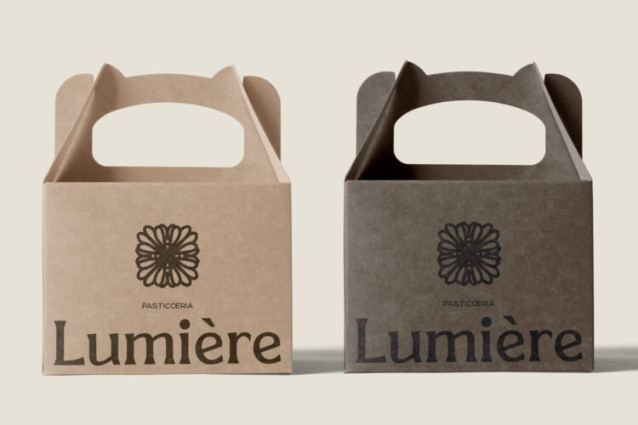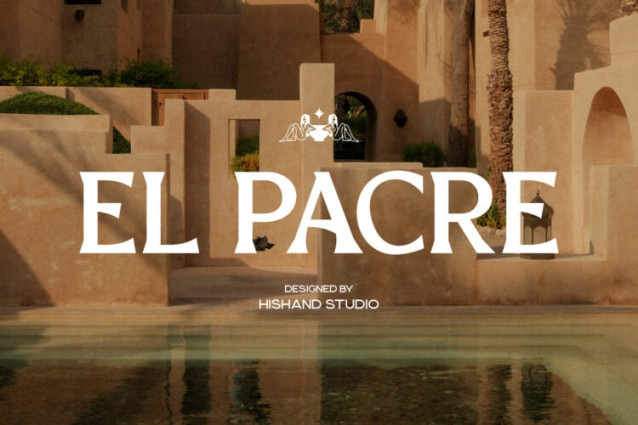
El Pacre Font is a bold and aesthetic display serif font designed to embody luxury, confidence, and timeless beauty. Every curve and detail has been carefully crafted to create a typeface that feels powerful yet refined. With its elegant letterforms and sophisticated proportions, El Pacre instantly elevates any design it touches. It’s made for creators who want their work to look distinctive, polished, and full of character.
The beauty of El Pacre lies in its perfect balance between tradition and modernity. It combines the classic charm of a serif with contemporary styling, creating a look that feels both timeless and fresh. The striking contrast between thick and thin strokes gives each letter a sense of rhythm and grace, making the font stand out effortlessly in any setting. Whether it’s used for logos, fashion branding, packaging, or magazine headlines, El Pacre delivers a luxurious visual experience that captures attention.
Designed with versatility in mind, this font looks stunning in both large and minimal compositions. Its strong presence and graceful flow make it ideal for designers who want to communicate elegance, creativity, and prestige. From modern editorials to boutique branding, it adapts beautifully to different styles while maintaining its bold personality.
Beyond its visual appeal, El Pacre tells a story of artistry and craftsmanship. Every shape, serif, and curve has been refined to achieve harmony between beauty and readability. It’s a font that invites designers to express confidence and style without saying a word.
If you’re looking for a typeface that defines sophistication and makes a lasting impression, El Pacre is the perfect choice. It’s more than just a font — it’s a statement piece that transforms ordinary words into extraordinary visuals. Use it to give your brand, packaging, or editorial layouts a touch of elegance and authority.